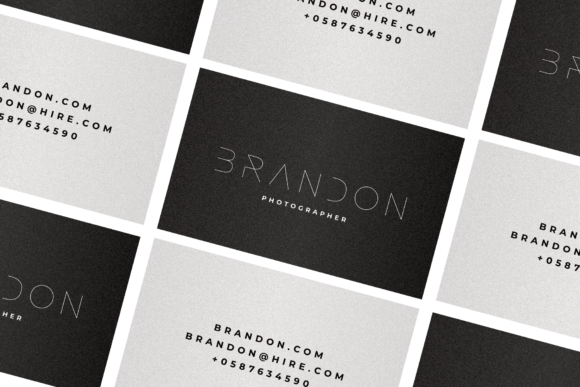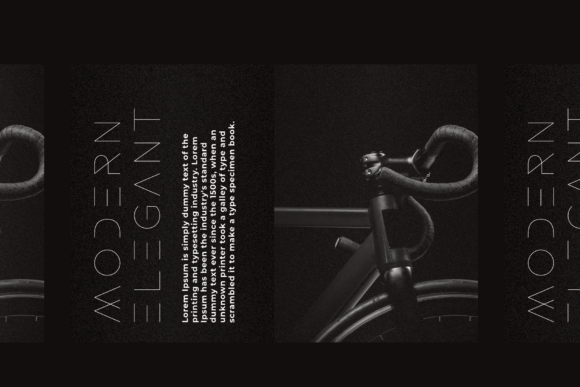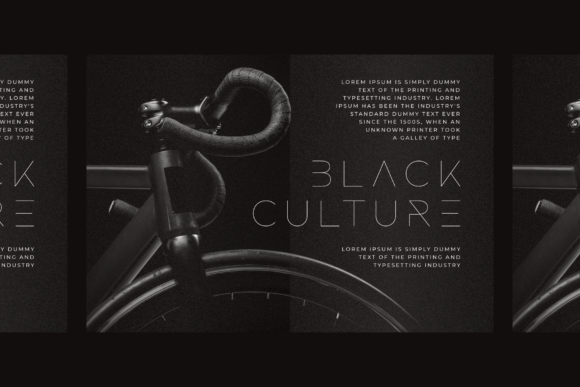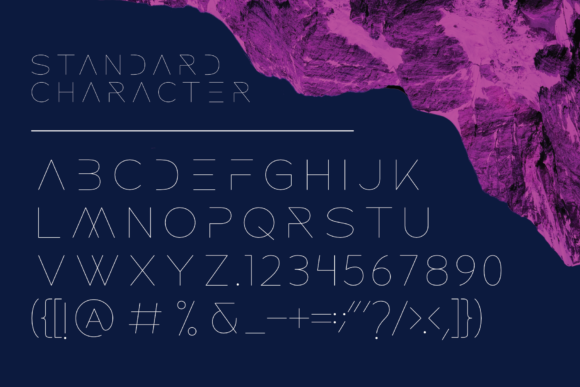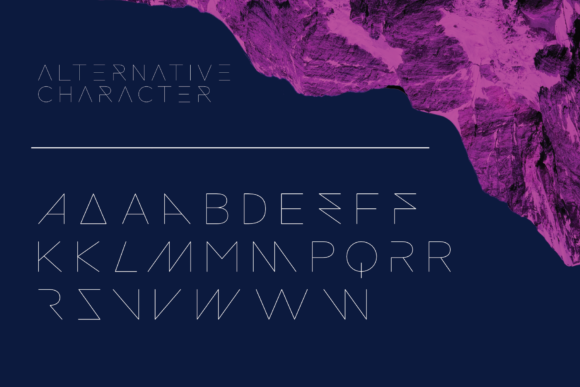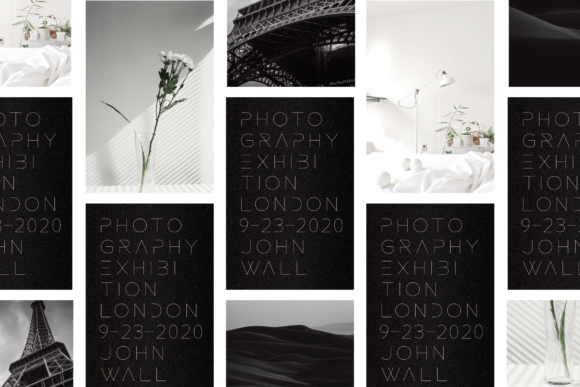
Introduction to Rocket Wildness Font
Rocket Wildness is a minimalist, modern, and elegant display font that is designed carefully for many needs.
Get inspired by its futuristic vibe .
Key Features of Rocket Wildness Font